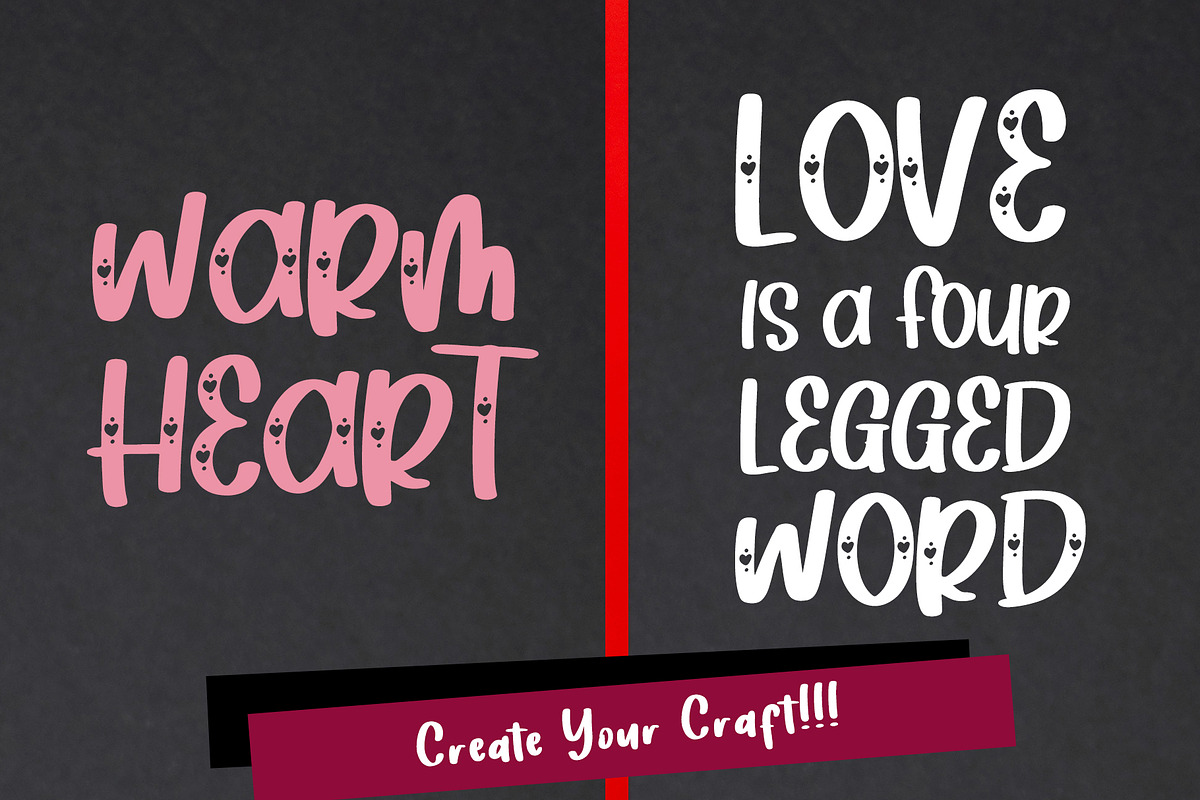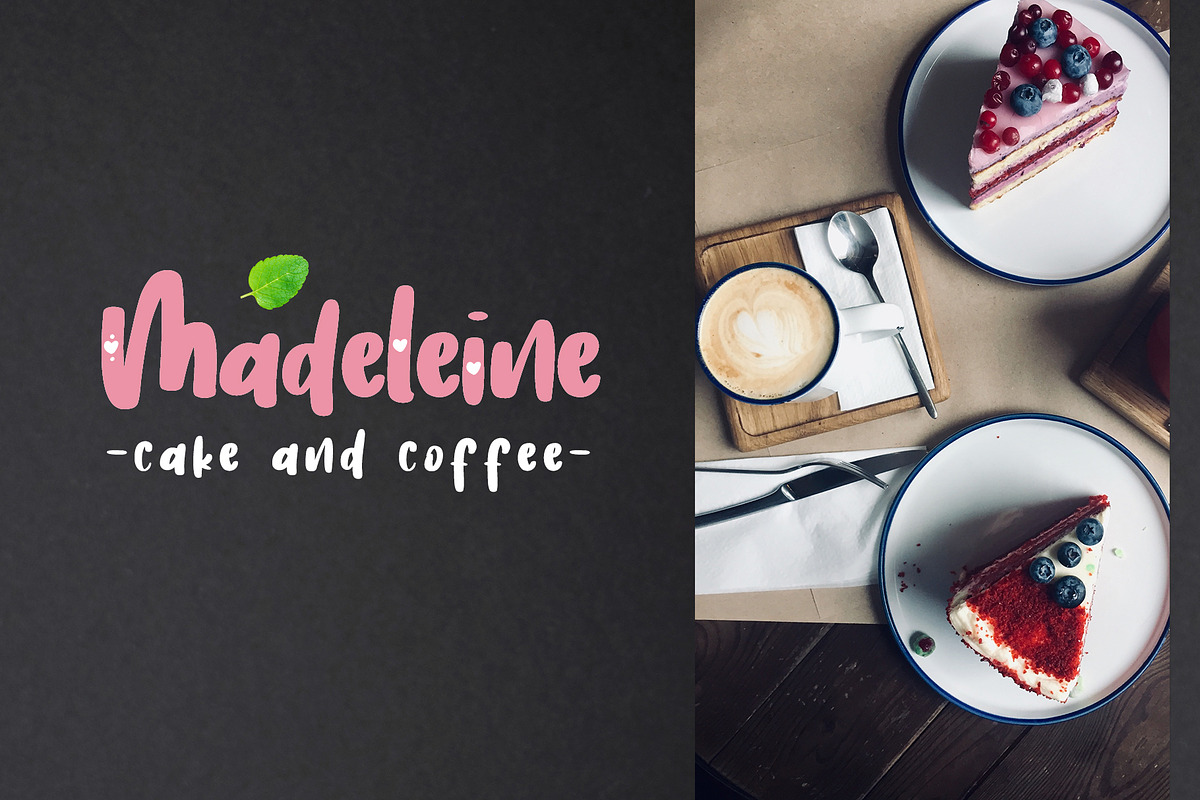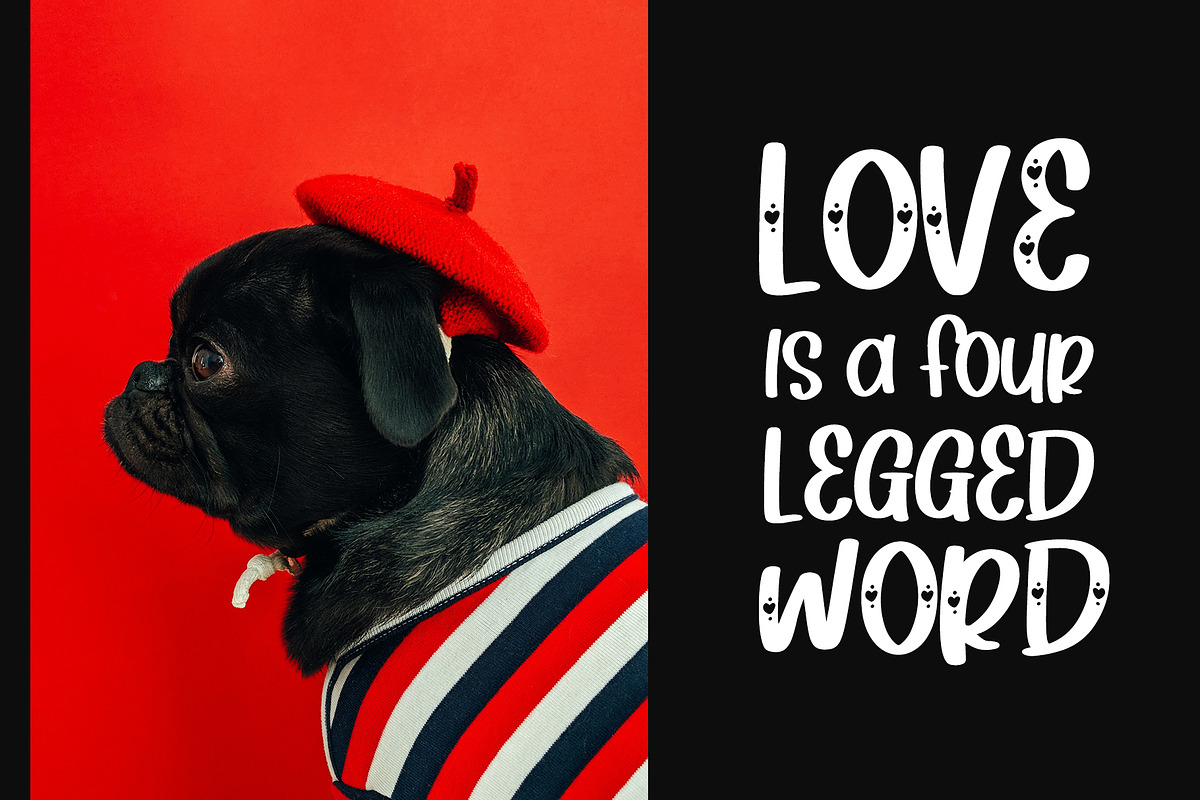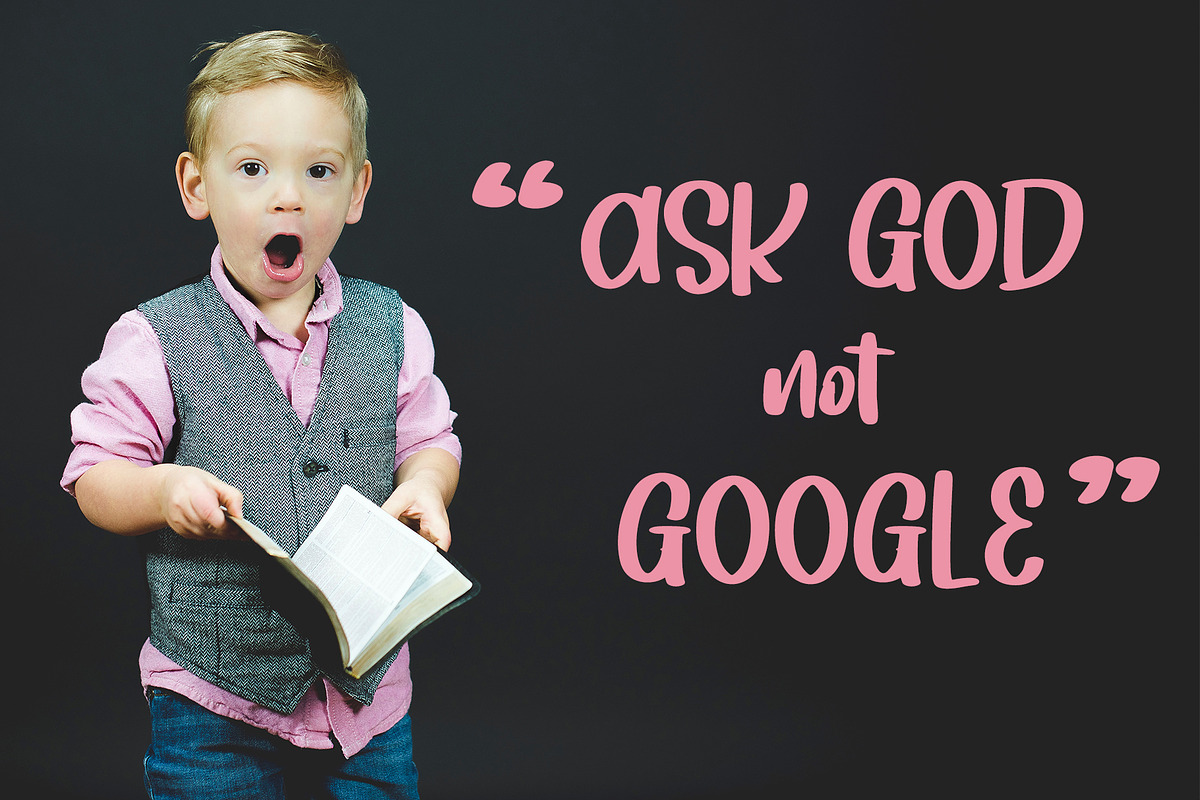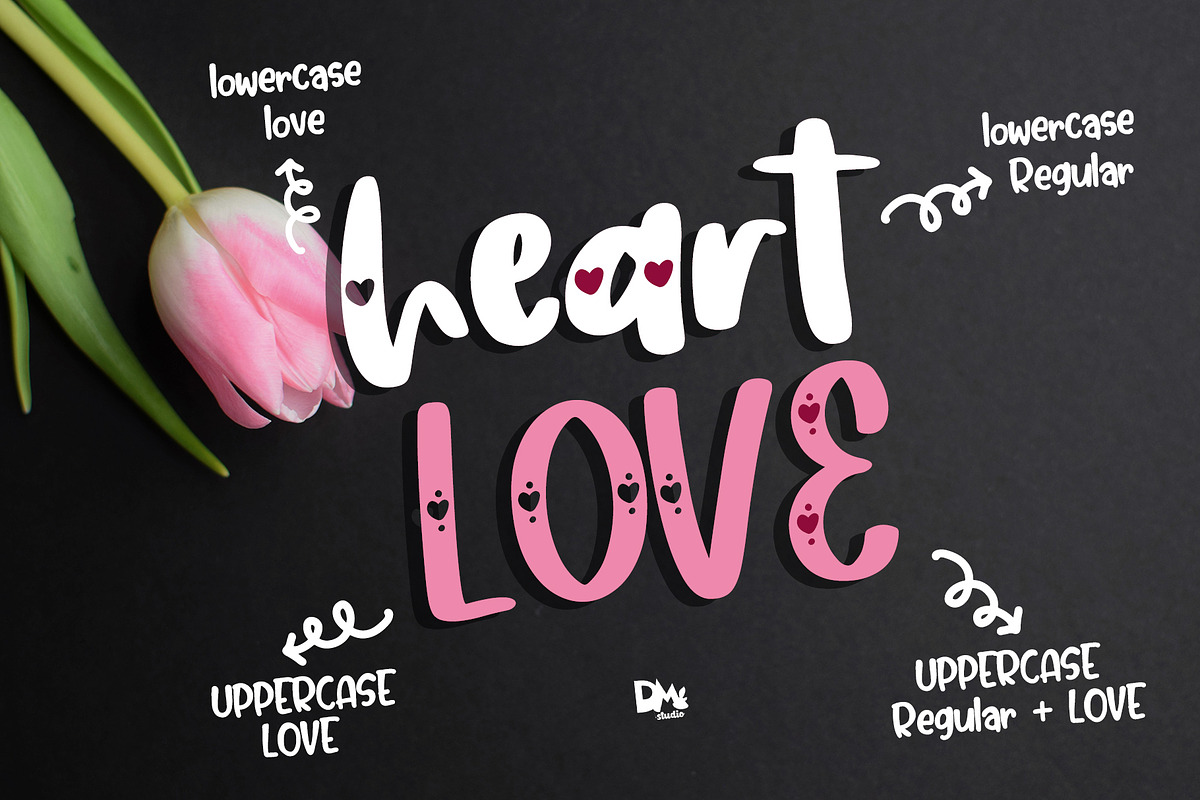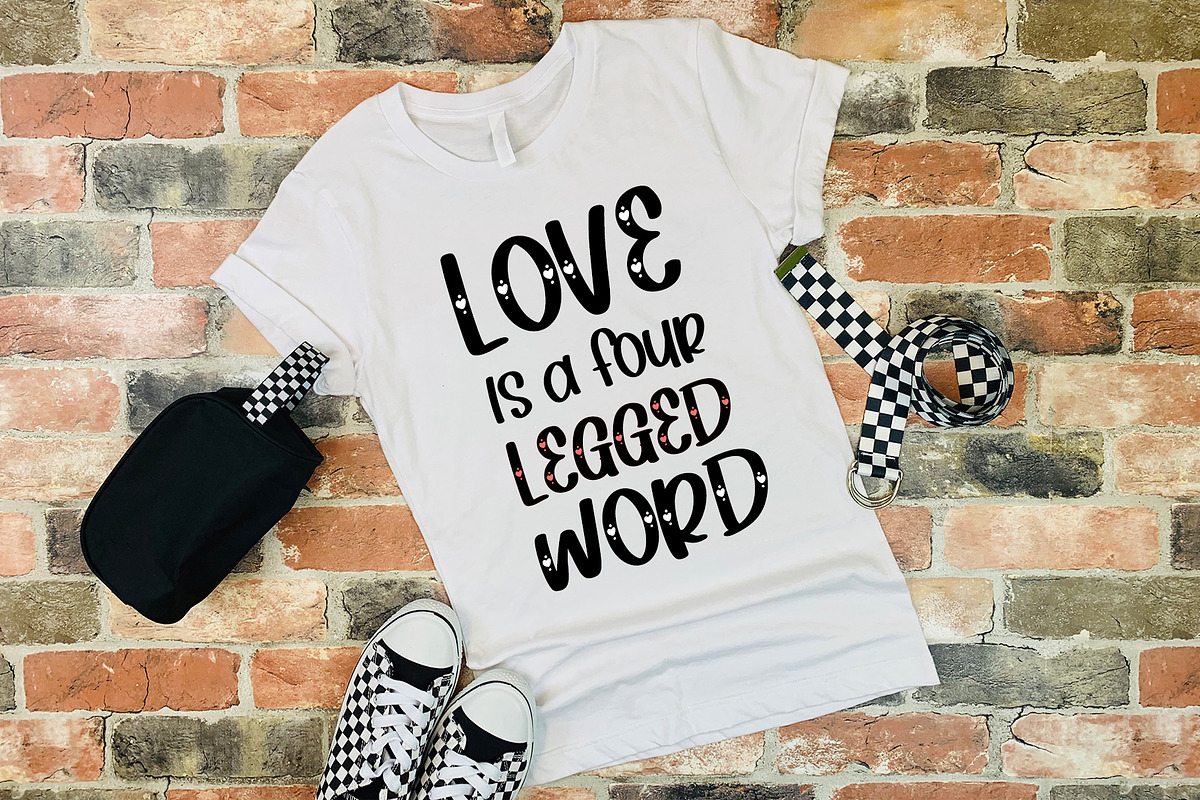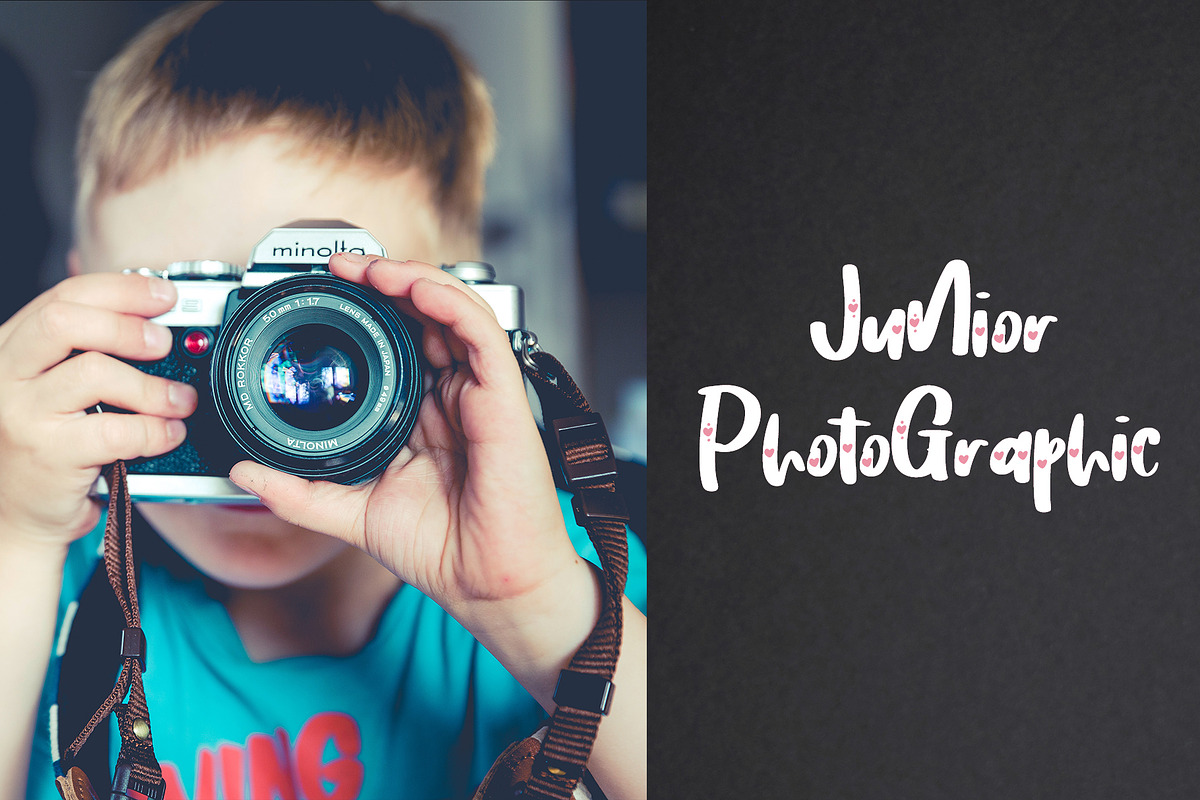
Heart Love - Lovely Font Duo
Introducing, Heart Love, Lovely Font Duo !
Make your lovely design more attractive by using our Font, Heart Love! This Font collection have two version, Love Version and Solid (Regular) Version. You can mix them to make some stunning stuffs!
Comes in two version, Love and Regular
Why Heart Love - Lovely Font Duo is worth a look
Heart Love - Lovely Font Duo by Dm Studio fits naturally into Branding, posters, packaging, typography.